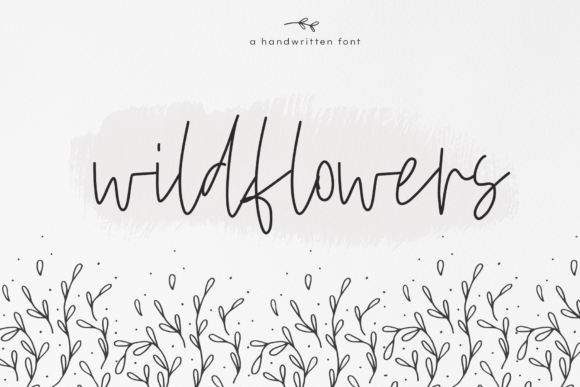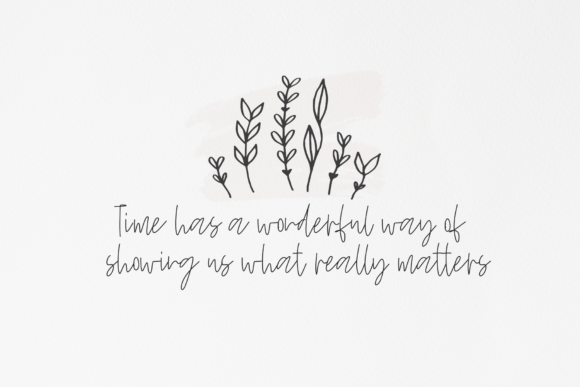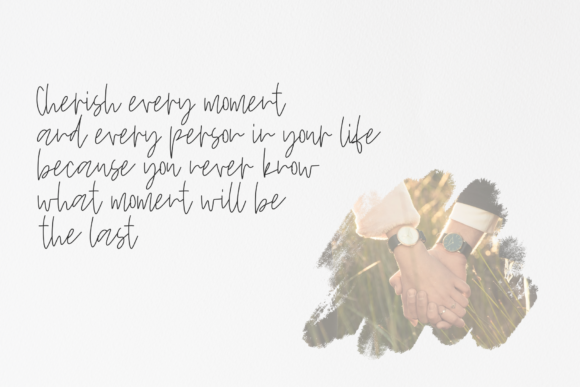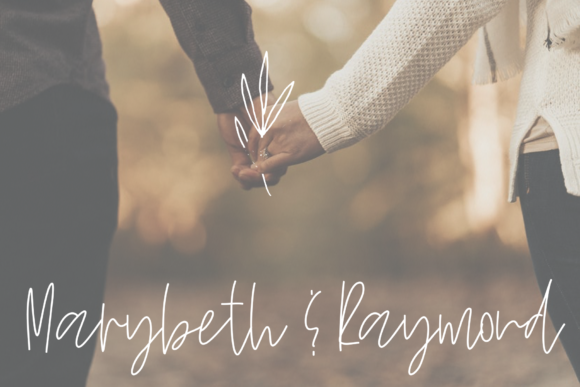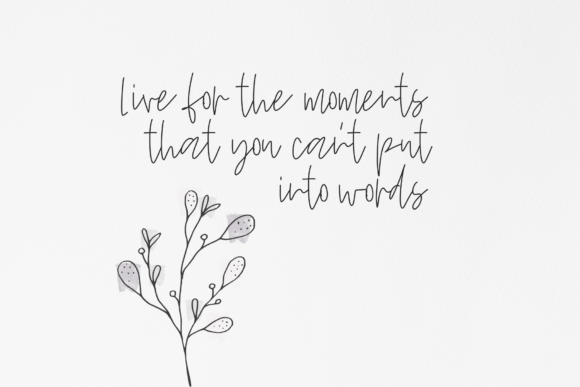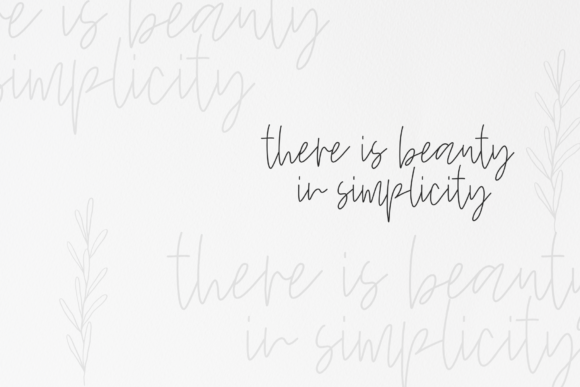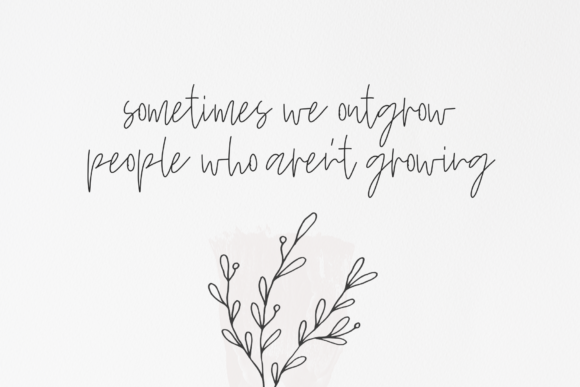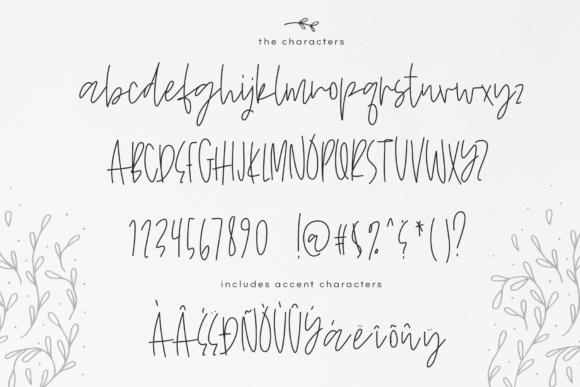
HomeScript FontsWildflowers Font Script Fonts Wildflowers Font FacebookXPinterestWhatsApp Wildflowers Font Poster 2 Wildflowers Font Poster 3 Wildflowers Font Poster 4 Wildflowers Font Poster 5 Wildflowers Font Poster 6 Wildflowers Font Poster 7 Wildflowers Font Poster 8 About Wildflowers Font Wildflowers is a chic script font with a unique style. It will turn any design project into a true standout! DOWNLOAD ON CREATIVE FABRICAThis font is sold and delivered by Creative Fabrica. Font Canyon may earn a commission if you buy through this link. People also explored Happy Wedding Physical Changes Font Calista Font Melly July Font Amigos Script – Retro Bold Script Font Digital Writing Allia Font Overnight Font Daisies of Our Lives Font 283 0 TagsWildflowers Font Previous articleEstele FontNext articleMolly & Elroy Font LEAVE A REPLY Cancel reply Comment: Please enter your comment! Name:* Please enter your name here Email:* You have entered an incorrect email address! Please enter your email address here Website: Save my name, email, and website in this browser for the next time I comment. Personal Use Free Jabirah Personal Use Free Read more about this font Relic Island 2 Personal Use Free Read more about this font Roland Personal Use Free Read more about this font Lollipop Melody Personal Use Free Read more about this font BLOG Free Fonts Risk: Why Free Fonts Can Be Dangerous for Designers Free Fonts Risk: Why Free Fonts Can Be Dangerous for Designers Using free fonts is a common practice in web and graphic design. However, the... Using Fonts in Digital Marketing: Tips to Strengthen Your Brand Identity To increase your work productivity, choose the most readable fonts. Top 7 Google Fonts Alternatives for Faster and Privacy-Friendly Web Design (2025)